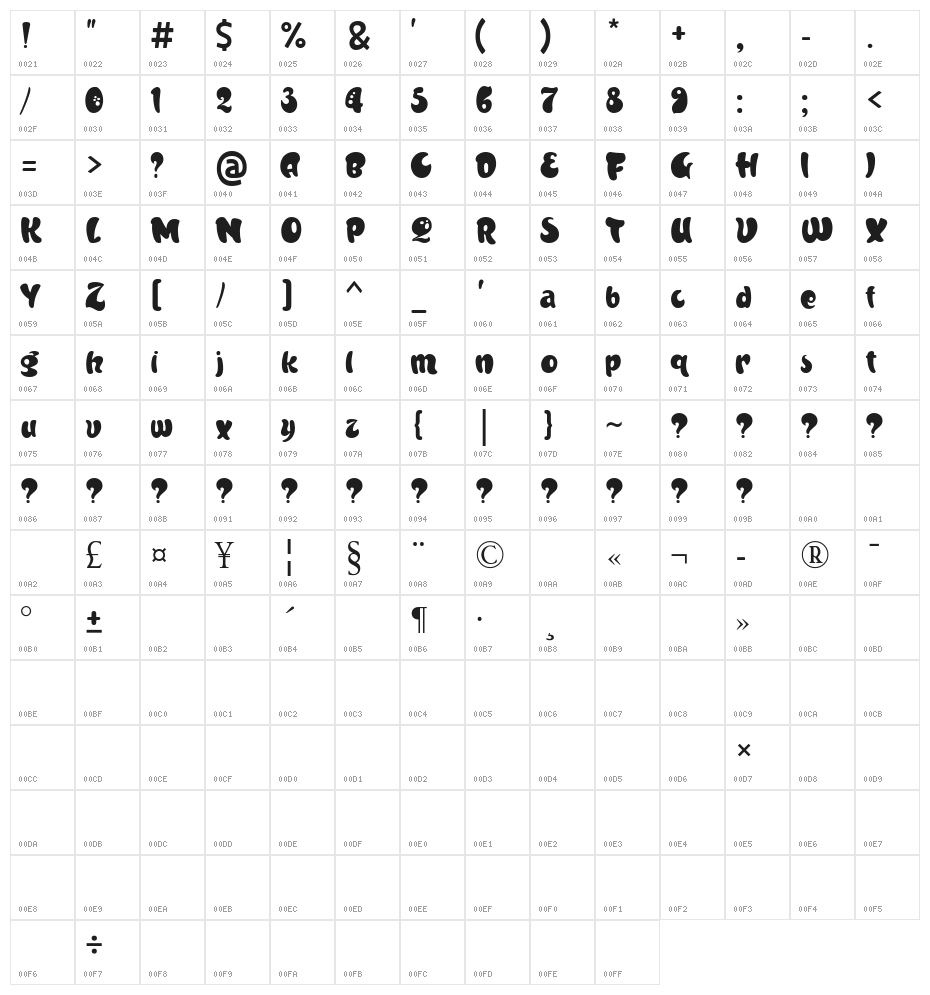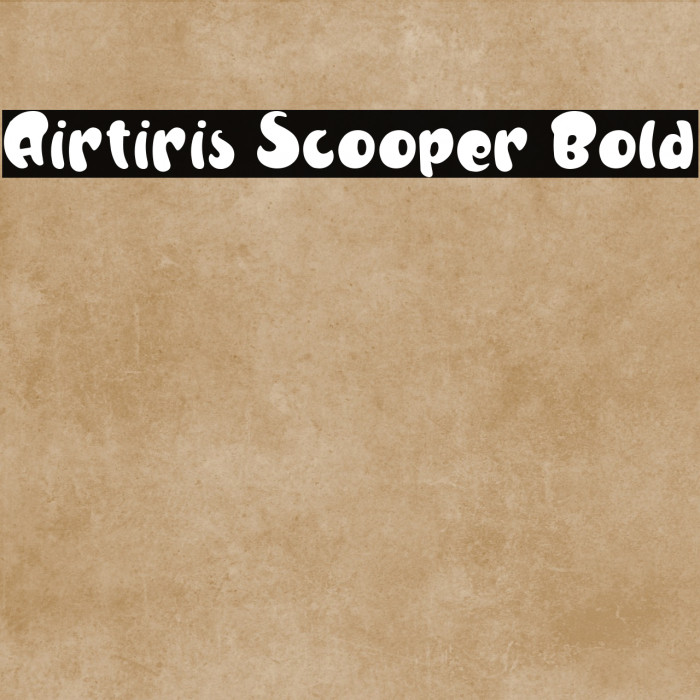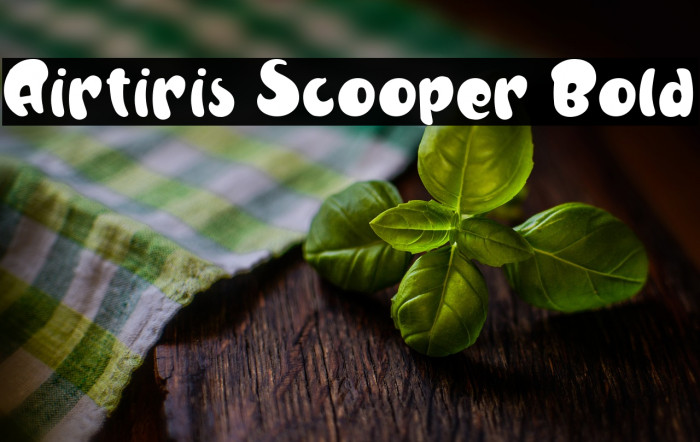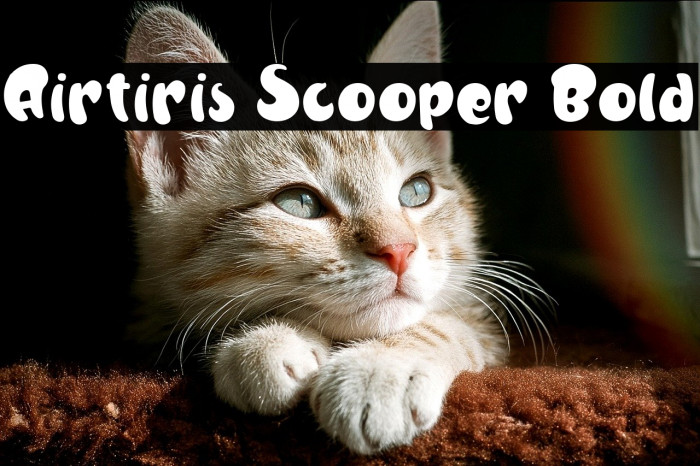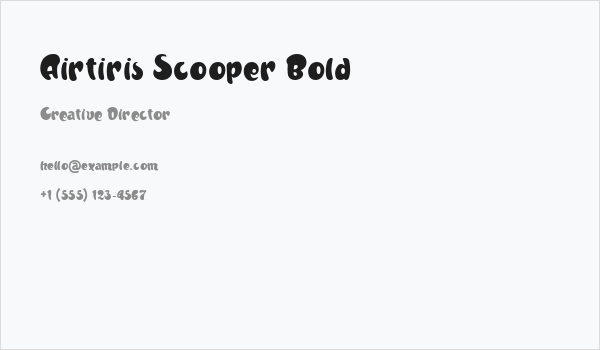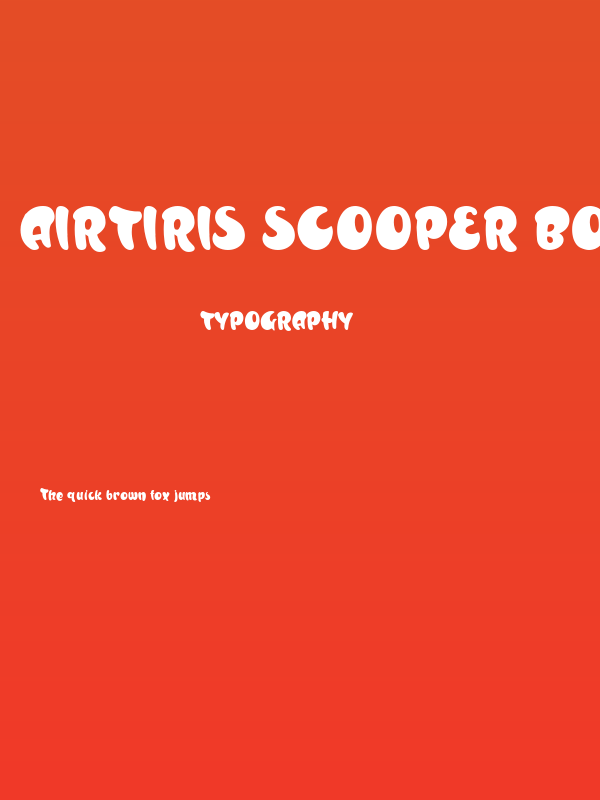
Airtiris Scooper Bold Font
Airtiris Scooper Bold Description
This playful and bold font features rounded, bubbly characters that exude a sense of fun and whimsy. The letters are thick and have a consistent weight throughout, creating a cohesive and eye-catching appearance. The unique design elements, such as the playful curves and exaggerated forms, make it stand out in any design. The font includes both uppercase and lowercase letters, numerals, and a variety of special characters, all maintaining the same lively style. Its boldness and distinctive style make it ideal for projects that require a touch of creativity and flair.